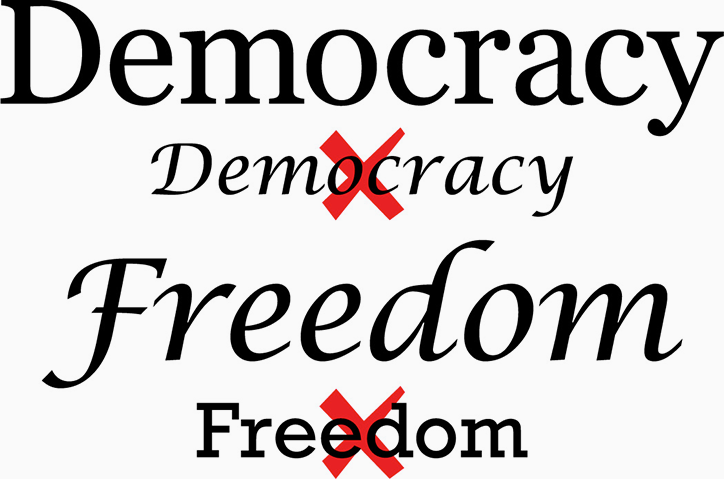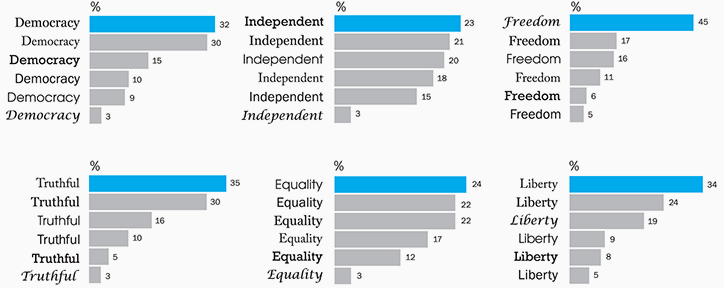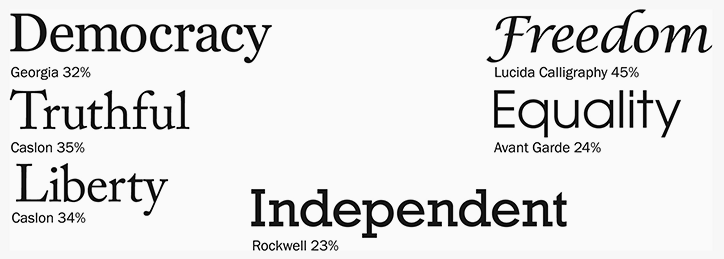
In Fonts You Trust surveys typefaces for Declaration of Independence
A graphic showing the word “Democracy” written twice in black text on a white background. The first is in a serif font with a red tick beside it, and the second is in an italic serif font with a red cross beside it.
Why Fonts Matter author Sarah Hyndman has published a survey on which typefaces best reflect values from the Declaration of Independence, to coincide with Independence Day on 4 July. Sarah, founder of type design, research and events studio Type Tasting, presented words like “Democracy,” “Freedom,” and “Liberty” in various fonts and asked survey participants to pair them with a typeface they believed best matched the word.
Sarah then analysed the responses using the results of her Font Census surveys. “We trust what we read when the font and words are in harmony,” she explains. “When they don’t match we can find that what we read feels less authentic.
“It has been proved that you will recognise a word faster, it has higher processing fluency, when the meaning of the word is mirrored by the typeface it appears in.”
When asked what “Democracy” looked like, 62% of the 114 people surveyed selected a formal, traditional serif typeface, with Georgia coming out as the top choice. A script-style typeface was however deemed a “poor reflection of Democracy.” Conversely for the word “Freedom” 45% chose Lucida Calligraphy, a curving, handwritten-style typeface.
“Truthful” and “Liberty” are seemed traditional and trustworthy, the research states, so chosen fonts are slightly old-fashioned. “Equality” was represented as modern, with large, confident and neutral letter forms.
Sarah hopes the findings will celebrate typography as uniting force in the context of the uncertain politic times. “This is a celebration of the shared language of type, whatever our beliefs, wherever we live, that gives us the freedom to communicate with the whole world.”
A typographic image featuring the words “Democracy” and “Freedom” repeated twice. In each pair, the second version of the word is crossed out with a bold red X.
In Fonts You Trust: two terms in typefaces that did and didn’t match, according to the survey
Six horizontal bar charts show the popularity of different words, each presented in a different typeface. The words include “Democracy”, “Independent”, “Freedom”, “Truthful”, “Equality” and “Liberty”.
In Fonts You Trust: Results for the best matches
A series of red horizontal bar charts showing percentages for different terms. The highest values are for “Democracy” at 63% and “Truthful” at 59%.
In Fonts You Trust: Results for the worst matches
A typographic featuring five words in different fonts, each paired with a percentage. The words include “Democracy”, “Truthful”, “Liberty”, “Freedom”, “Equality” and “Independent”.
In Fonts You Trust: all the surveyed words